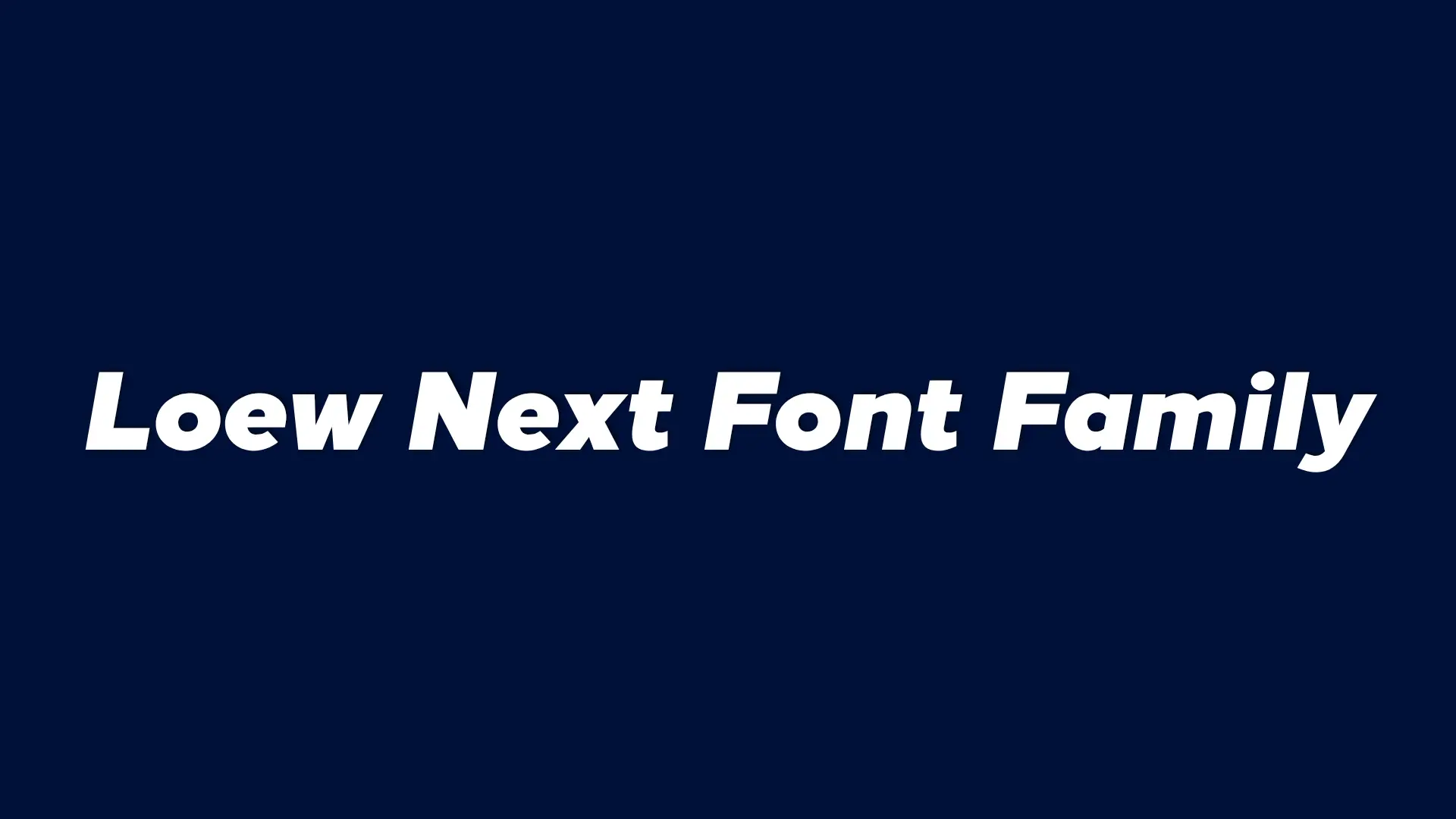
Loew Next Font Family
Loew Next Font Family is a sans serif font designed by Jonathan Hill and published by The Northern Block Ltd. Simple, open letter shapes keep it easy to read at almost any size, from app buttons to big headlines. You get 12 styles in one free ZIP, and the preview above lets you test each one before you download.
- Font styles: 12 (Regular, Thin, Thin Italic, Light Italic, Medium, Medium Italic, Bold, ExtraBold Italic, Black, Heavy and Italic)
- Glyphs: 98 in the Regular style
You get every letter from A to Z in both cases and all the numbers from 0 to 9, which means Loew Next Font Family can handle full sentences, dates and prices. Punctuation is limited, so look at the character map if you need a specific symbol. There are no accented letters like é or ñ, so it's best kept to English text.
Designers usually reach for fonts like Loew Next Font Family when they're making websites, app screens and clean logos. It works for headings and body text alike. If the download has several weights, use a heavier one for titles and a lighter one for paragraphs. Because the family has more than one style, you can mix them in a single design for headings, subheadings and highlights.